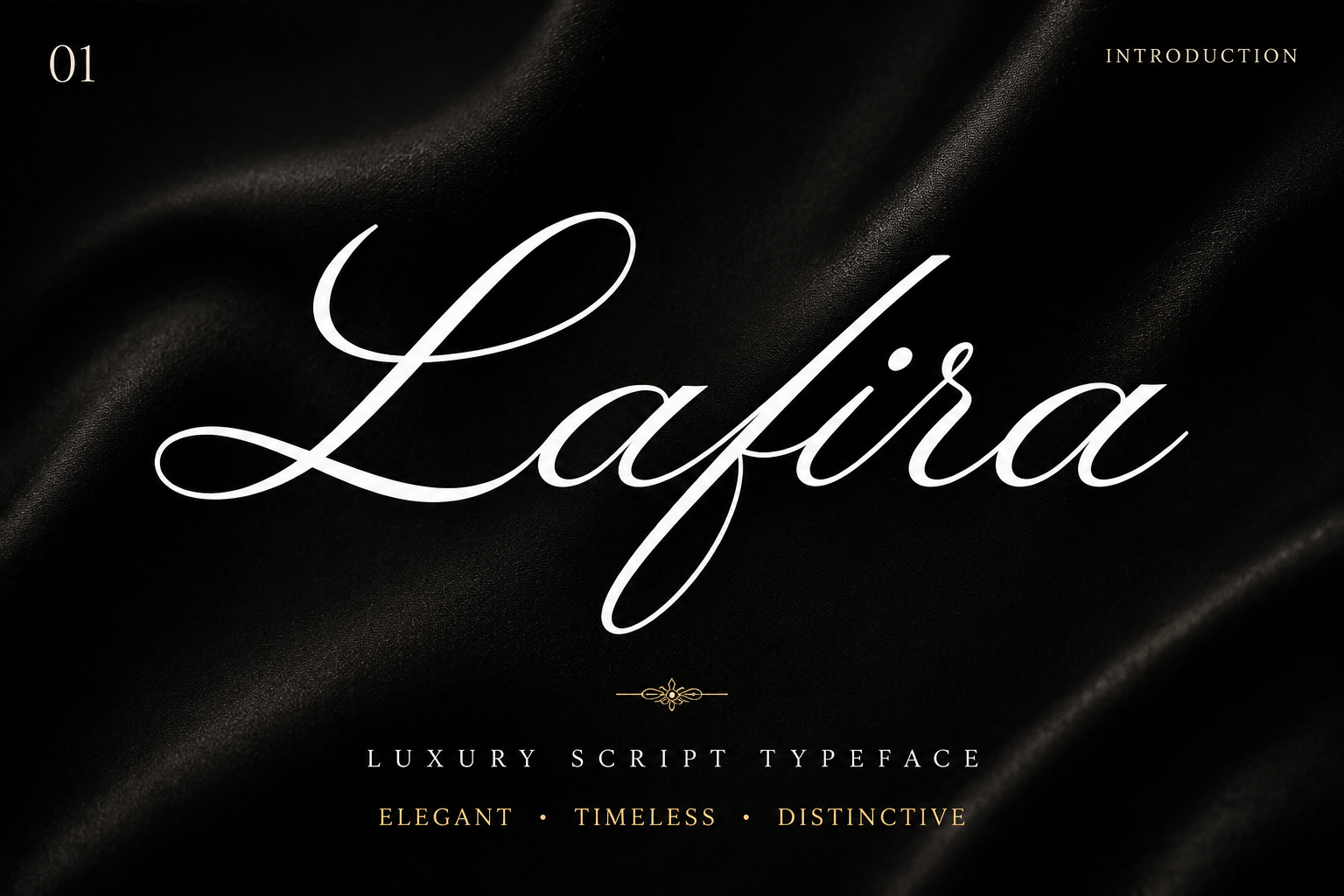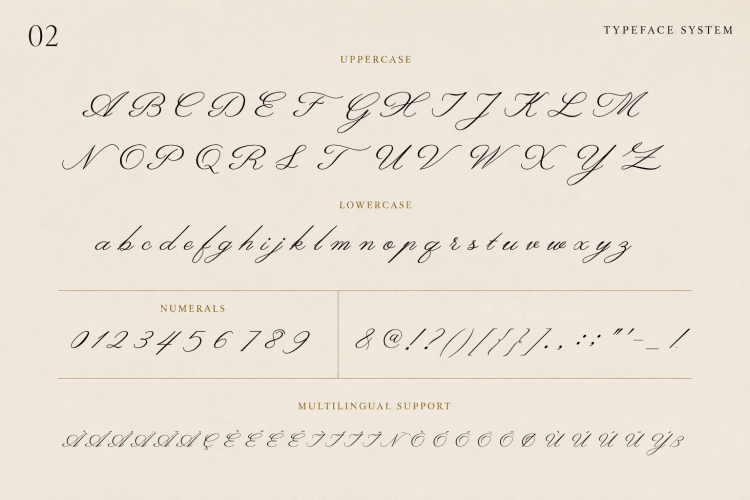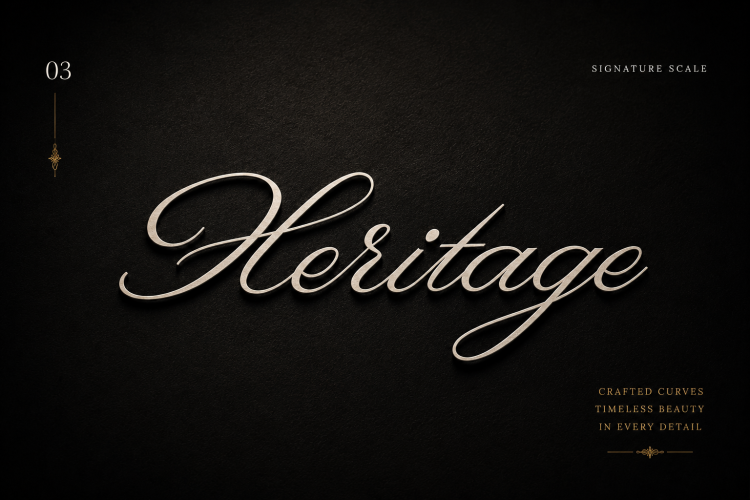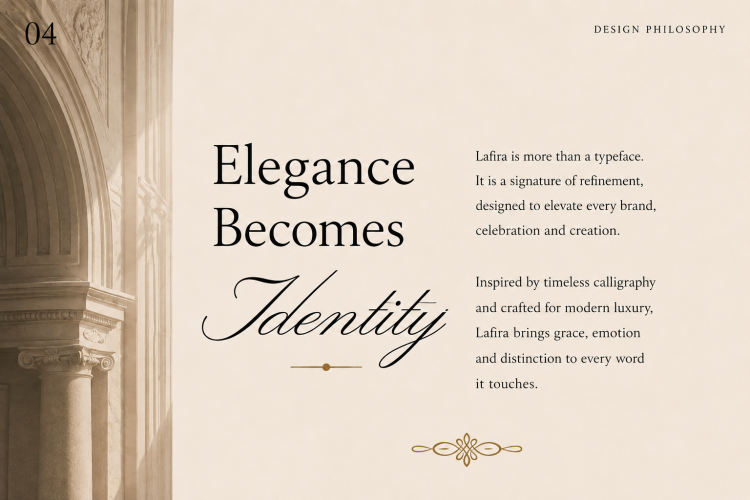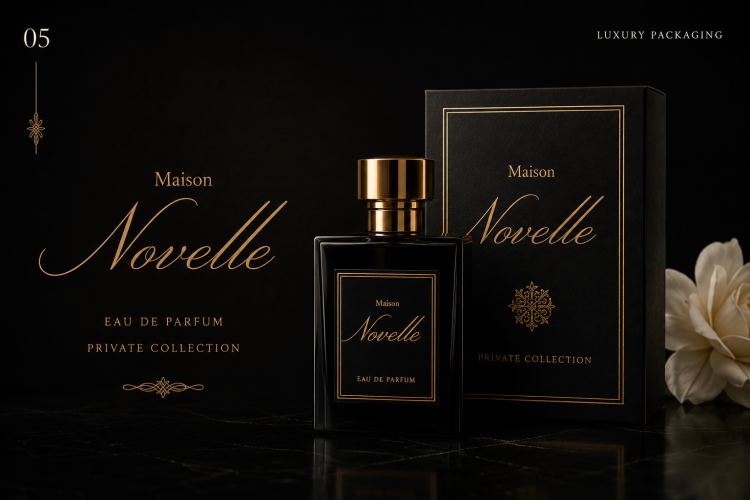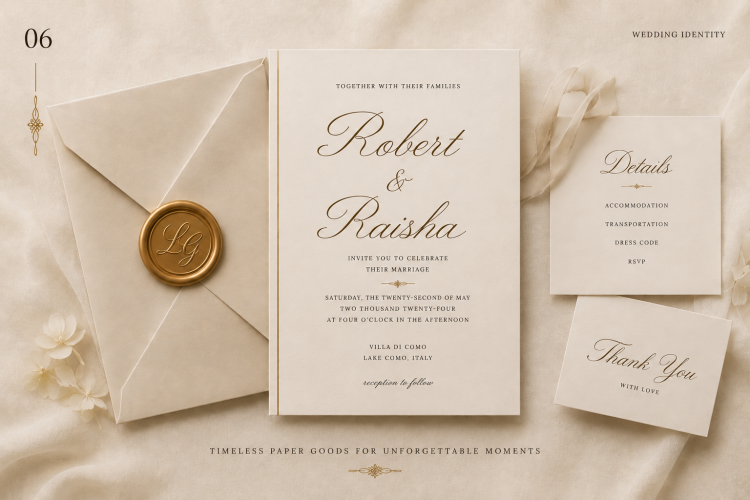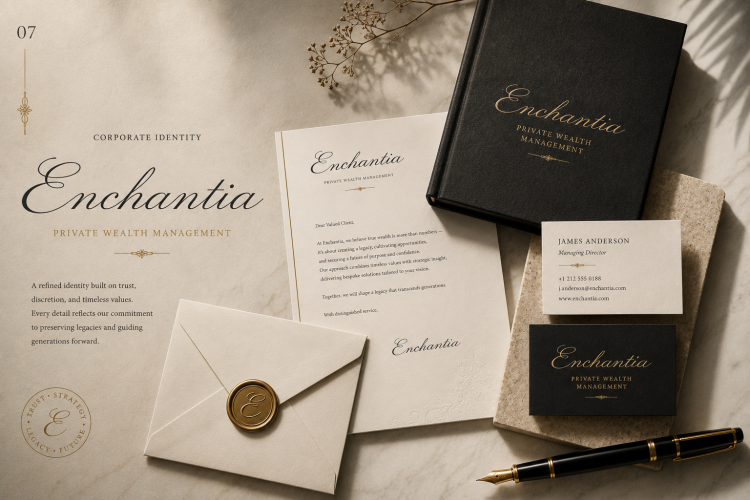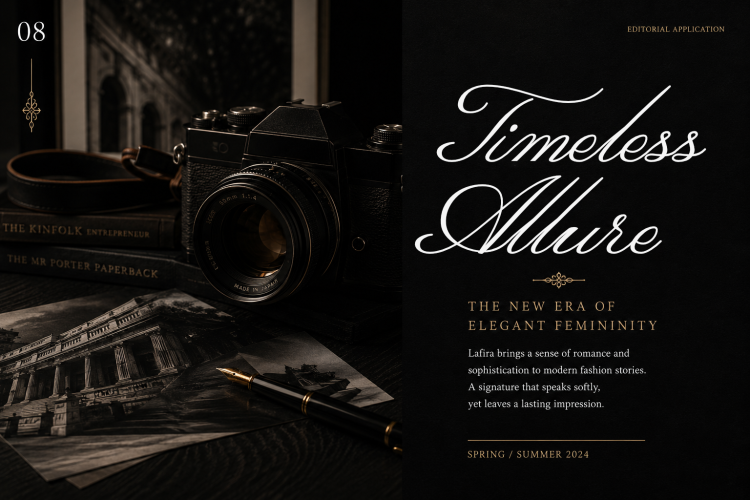
Lafira is a refined luxury script typeface that blends timeless calligraphic elegance with modern sophistication. Designed with flowing curves, graceful swashes, and delicate contrast, Lafira captures the beauty of classic handwriting while maintaining exceptional readability and versatility.
Perfect for premium branding, wedding stationery, packaging, fashion editorials, beauty products, invitations, logos, and high-end advertising, Lafira brings a sense of romance, prestige, and effortless refinement to every design.
Whether used for a signature logo or an elegant headline, Lafira creates a memorable impression with its distinctive character and sophisticated charm.
Features
• Elegant luxury script design
• Beautiful flowing swashes and alternates
• Signature-inspired letterforms
• High contrast calligraphic strokes
• Sophisticated and timeless appearance
• Suitable for both print and digital applications
• Ideal for premium branding and editorial work
Perfect For
• Luxury Branding
• Logo Design
• Wedding Invitations
• Beauty & Cosmetic Packaging
• Perfume & Fragrance Brands
• Jewelry Branding
• Fashion Editorials
• Boutique Businesses
• Product Packaging
• Social Media Content
• Magazine Headlines
• Advertising Campaigns
• Certificates & Monograms
• High-End Corporate Identity
Lafira – Luxury Script Typeface